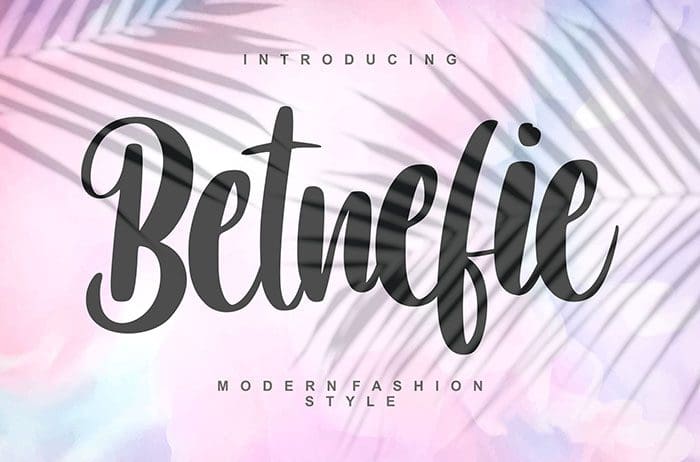
Betnefie Script Font
Betnefie is a fancy and beautiful crafting script font that radiates life. It will add an authentic spin on any design project. Thanks to Vunira Studio for sharing this font! Take a look at this portfolio for more of his stunning fonts.